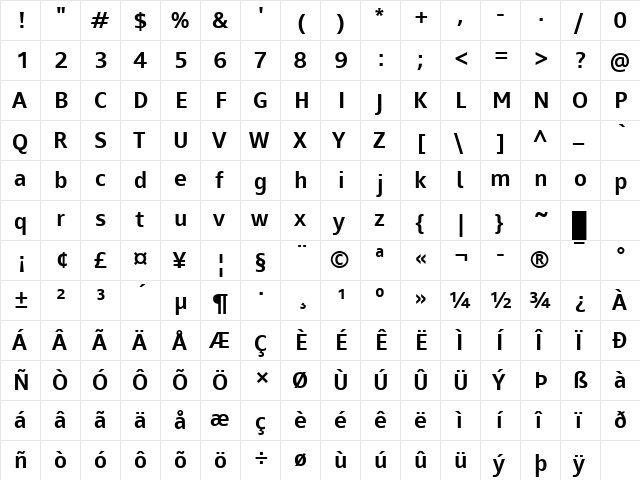
Mayberry Pro Semibold Regular Font Preview
Mayberry Pro Semibold Regular
Mayberry Pro Semibold Regular Font Details
| Foundry | Ascender Corporation |
| Designer | Steve Matteson |
Design Context for Mayberry Pro Semibold Typeface
Mayberry Pro Semibold takes a measured approach to typography — its balanced proportions and neutral character make it a reliable workhorse for both digital and print work. Its bold stroke weight gives it real presence on the page.